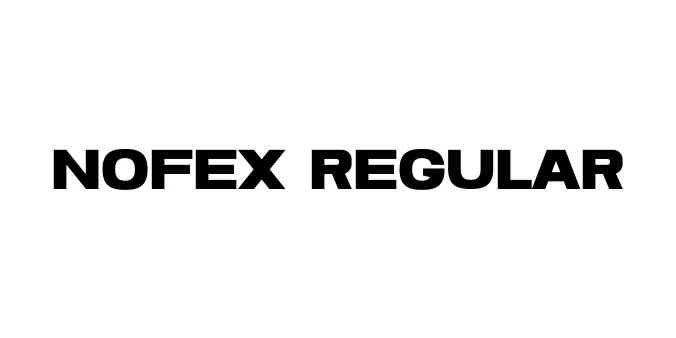
Nofex Regular
Designed by Ray Larabie (Typodermic Fonts)
| Category | Sans-serif |
| Designer | Ray Larabie (Typodermic Fonts) |
| Similar Fonts | Eurostile, Microgramma, Michroma, Bank Gothic |
Nofex Regular is a distinctively wide, techno-inspired sans-serif typeface designed by the prolific Ray Larabie of Typodermic Fonts. This font was crafted to embody a sense of modern efficiency and digital forwardness, drawing inspiration from mid-century Eurostile-style letterforms while pushing them into a more contemporary, sleek direction. Its low-contrast strokes and square-ish architecture make it highly effective for display purposes where a bold, technological statement is required.
The typeface is particularly noted for its extended proportions, which allow it to command significant horizontal space on a page or screen. Over the years, Nofex has become a popular choice for designers working in the gaming, aerospace, and high-tech industries. Its clean, geometric construction ensures that it remains legible even in high-speed visual environments, making it a versatile tool for both static graphic design and dynamic motion graphics.
Nofex Regular Best Uses
Perfect for bold, eye-catching titles in digital projects.
Ideal for tech startups and gaming identities looking for a modern edge.
Great for futuristic film posters, game interfaces, and book covers.
Works exceptionally well for high-impact banners and promotional graphics.